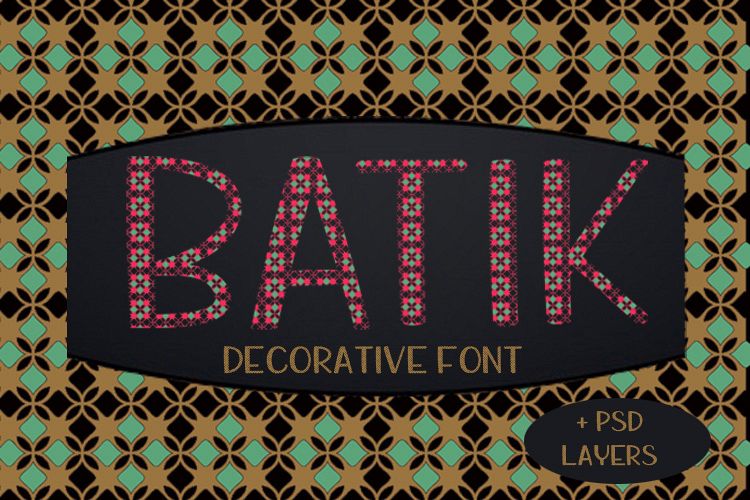
Batik
Batik-Regular
Introducing the new set of Decorative Batik Fonts plus ultra-textured PSD Layers designed with high-resolution detail  embedded in it - No need to spend hours making your own letters - just type these babies directly into your project. Introducing a new set of Font Decorative Batik plus Layers PSD is a font containing uppercase letters, punctuation and  international language - to make your project look truly authentic and realistic.
This includes a complete set of LETTERS to make your design look more natural and less font-like.
All-Caps Sans-Serif SVG Fonts that are smooth-edged with texture and have high resolution, with colors that can be changed to your liking